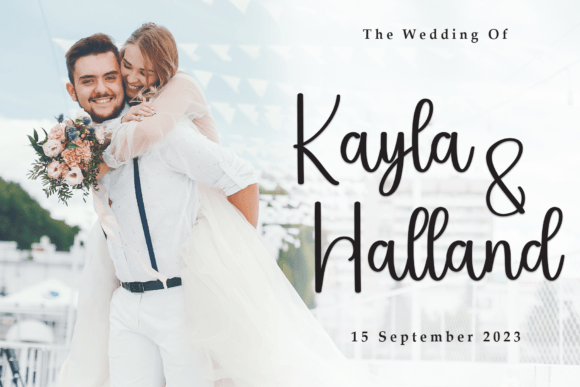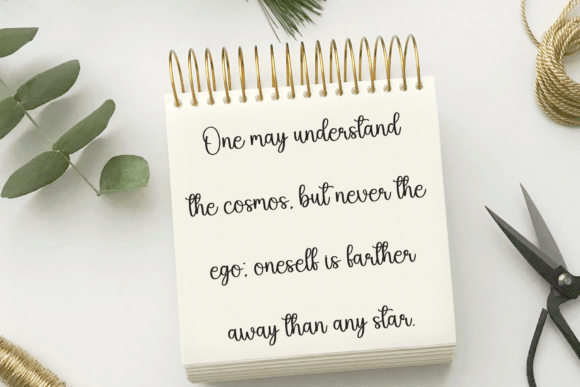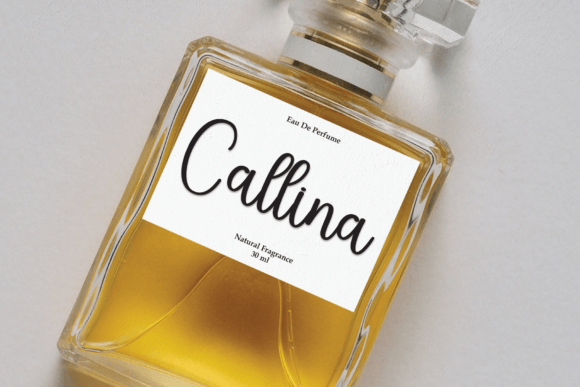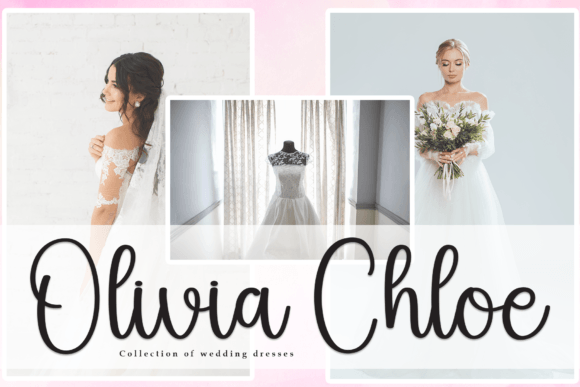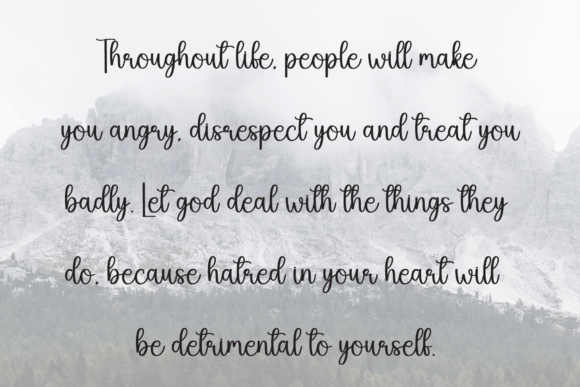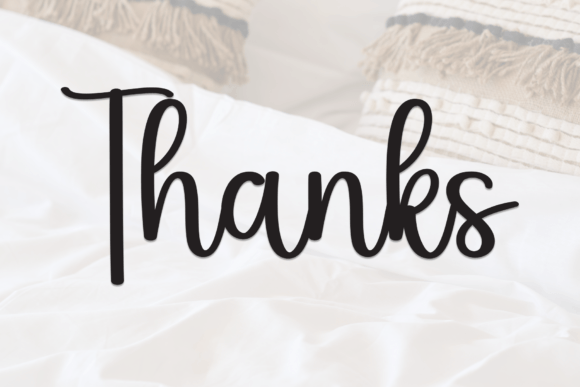
Introducing Blanket Font: The Sweet and Friendly Handwritten Display Font
Are you looking for a font that can add a touch of warmth and personality to your designs? Look no further than Blanket Font, a sweet and friendly handwritten display font that’s perfect for a variety of creative projects. In this article, we’ll take a closer look at Blanket Font, its features, and how you can use it to elevate your designs.
What is Blanket Font?
Blanket Font is a beautiful, handwritten display font that’s designed to bring a sense of fun and playfulness to your designs. With its cute and charming lettering style, this font is ideal for writing wedding invitations, cards, or any other design that might need a fun touch. Whether you’re a designer, crafter, or DIY enthusiast, Blanket Font is a great addition to your font collection.
Key Features of Blanket Font
So, what makes Blanket Font so special? Here are some of its key features:
- Handwritten style: Blanket Font has a beautiful, handwritten style that’s perfect for adding a personal touch to your designs.
- Cute and fun: This font is designed to be cute and fun, making it perfect for designs that need a playful touch.
- Display font: Blanket Font is a display font, which means it’s designed to be used at larger sizes, making it perfect for headings, titles, and other display text.
- Easy to read: Despite its playful style, Blanket Font is easy to read, making it perfect for use in a variety of designs.
Uses for Blanket Font
So, what can you use Blanket Font for? The possibilities are endless, but here are some ideas to get you started:
- Wedding invitations: Blanket Font is perfect for writing beautiful, handmade-style wedding invitations that will set the tone for your special day.
- Cards and stationery: This font is great for creating cute and fun cards, stationery, and other paper crafts.
- Signs and posters: Blanket Font can be used to create eye-catching signs and posters for events, sales, and promotions.
- Social media graphics: This font is perfect for creating social media graphics, such as Facebook posts, Instagram stories, and more.
- Branding and packaging: Blanket Font can be used to create unique and memorable branding and packaging for your business or product.
Tips for Using Blanket Font
Here are some tips for using Blanket Font in your designs:
- Use it at larger sizes: Blanket Font is designed to be used at larger sizes, so don’t be afraid to use it for headings and titles.
- Experiment with colors: This font looks great in a variety of colors, so don’t be afraid to experiment and find the perfect color for your design.
- Pair it with other fonts: Blanket Font can be paired with other fonts to create a unique and interesting design.
- Use it for emphasis: This font is perfect for adding emphasis to certain words or phrases in your design.
In conclusion, Blanket Font is a sweet and friendly handwritten display font that’s perfect for adding a touch of fun and personality to your designs. With its cute and charming lettering style, this font is ideal for a variety of creative projects, from wedding invitations to social media graphics. Whether you’re a designer, crafter, or DIY enthusiast, Blanket Font is a great addition to your font collection.